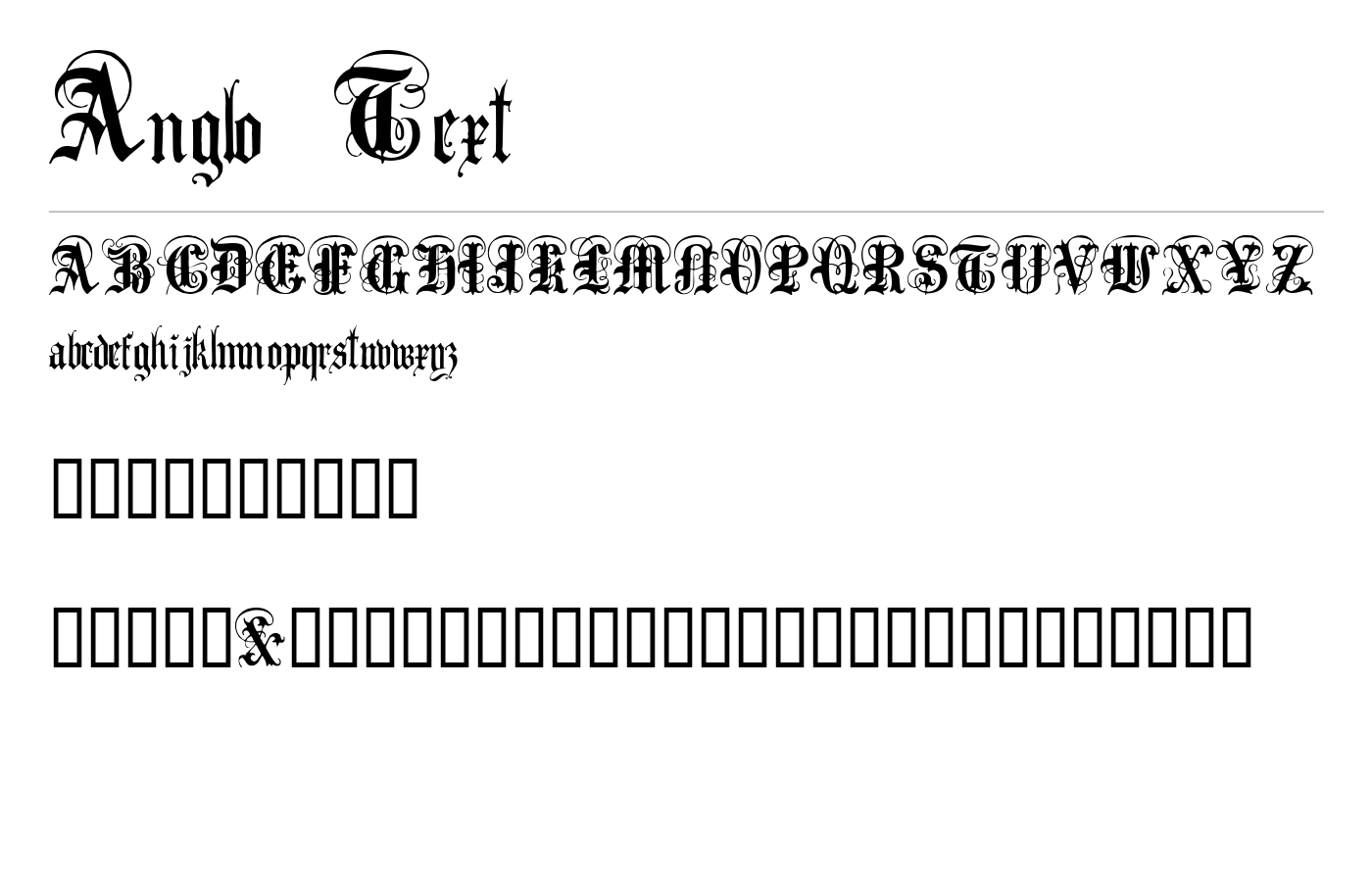
Anglo Text is a decorative blackletter serif font with intricate, ornate detailing that evokes a historic, medieval feel. Its high contrast strokes and embellished uppercase letters create a bold, dramatic style ideal for vintage or gothic-themed designs, making it perfect for logos, headlines, and branding that require a touch of old-world elegance.
Anglo Text Font
About Anglo Text Font